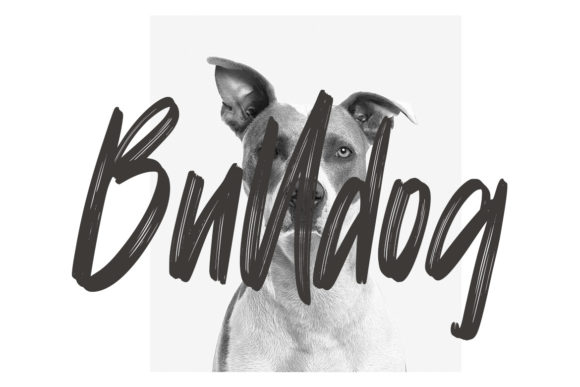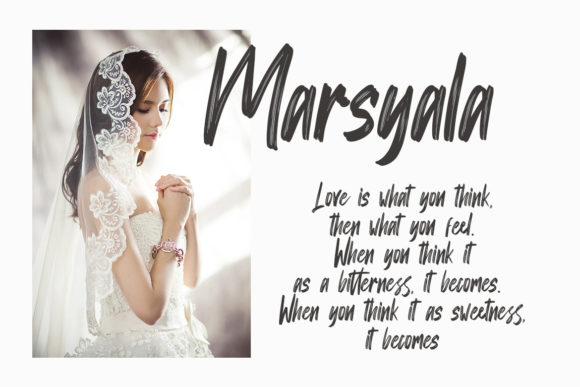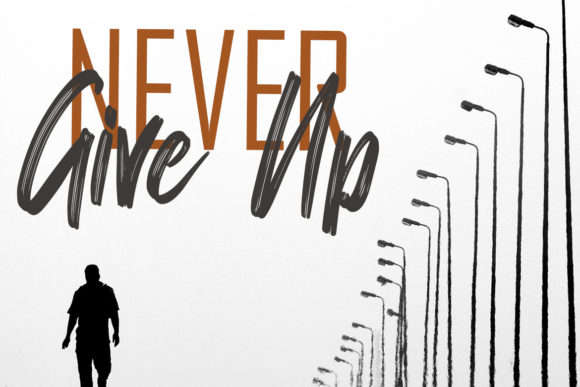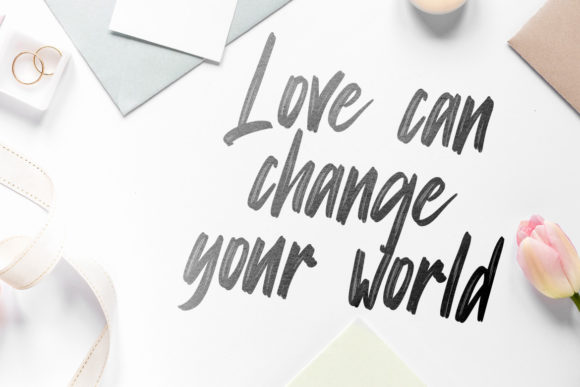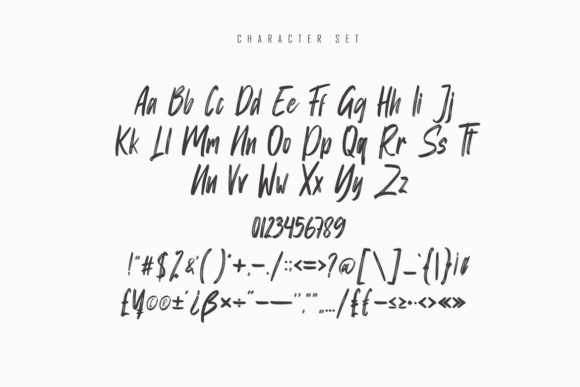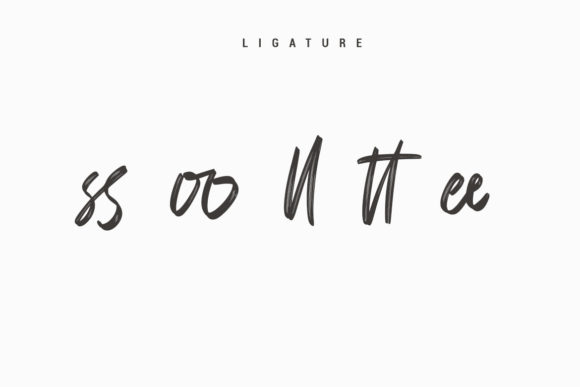
Introduction to Mattolla Font
Mattolla is a stylish and incredibly elegant script font.
Key Features of Mattolla Font
Why Choose Mattolla Font?
Mattolla Font offers exceptional quality and versatility, making it a valuable addition to your design toolkit. Whether you’re creating for personal projects or commercial use, Mattolla Font delivers professional results.